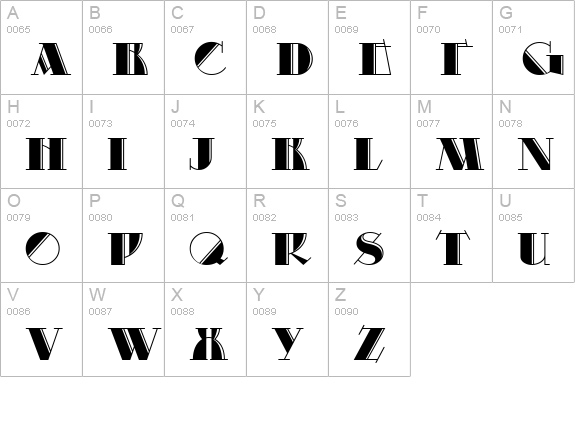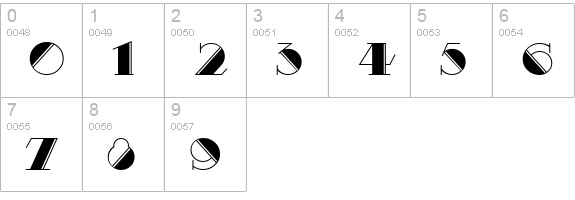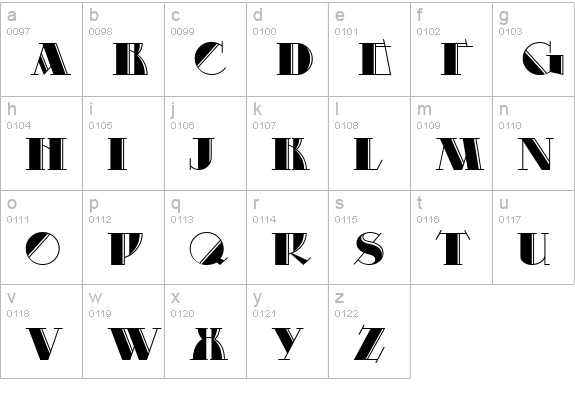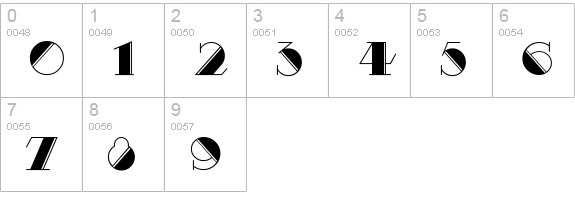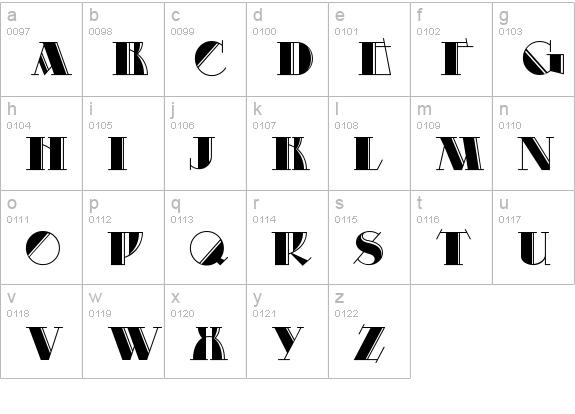
Marrakesh Express NF Font Details
Marrakesh Express NF is a mesmerizing font that will transport you to the vibrant and exotic streets of Marrakesh. With its intricate and delicate design, this font captures the essence of the city's rich culture and traditional craftsmanship. Every curve and line of Marrakesh Express NF is meticulously crafted, creating a truly unique and eye-catching typeface. Its elegant and flowing strokes give it a sense of movement and dynamism, making it perfect for designs that demand attention and allure. What sets Marrakesh Express NF apart is that it is freely available to download at FontsMarket.com. This means that you can unleash your creativity without any limitations or restrictions. Whether you are designing a logo, a poster, or a website, Marrakesh Express NF will add a touch of sophistication and intrigue to your project. The versatility of Marrakesh Express NF allows it to be used in a variety of design applications. Its intricate details make it ideal for branding and advertising materials, while its readable yet artistic nature makes it suitable for editorial and display purposes. This font is a true chameleon, adapting effortlessly to any design concept or style. With Marrakesh Express NF, you don't just get a font, you get a piece of Marrakesh's vibrant culture and heritage. Its intricate details and captivating design will transport your audience to the bustling markets and enchanting riads of this magical city. So why wait? Download Marrakesh Express NF for free at FontsMarket.com and embark on a typographic journey that will captivate and inspire. Let Marrakesh Express NF be the bold and beautiful statement that sets your designs apart.